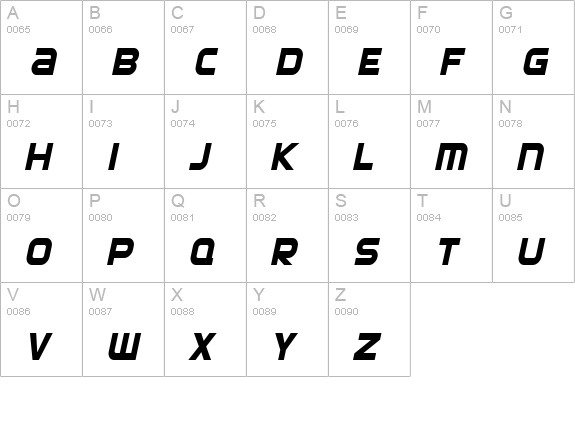
SF Automaton Condensed Oblique Font Details
SF Automaton Condensed Oblique is a distinctive, condensed-width, italic variant in the SF typeface family \xE2\x80\x94 well suited to design and typography projects.
SF Automaton Condensed Oblique is a modern and sleek font that is perfect for adding a touch of sophistication to your designs. Its condensed and oblique style gives it a unique and eye-catching appearance that is sure to make a statement. This font is ideal for various design projects such as logos, headers, posters, and more. What makes SF Automaton Condensed Oblique even better is that it is available for free! You can easily download this font at FontsMarket.com, where you'll find a wide variety of high-quality fonts to choose from. Whether you're a seasoned designer or just starting out, this font is a great addition to your collection. With SF Automaton Condensed Oblique, you can create professional-looking designs without breaking the bank. Its clean lines and modern aesthetic make it versatile and suitable for a wide range of applications. Whether you're designing for print or digital media, this font is sure to elevate your projects to new heights. The condensed nature of SF Automaton Condensed Oblique allows you to fit more text into a limited space without sacrificing legibility. This makes it a great choice for projects where space is at a premium, such as small advertisements or social media graphics. The oblique style adds a touch of flair and elegance, making your designs stand out from the crowd. In conclusion, SF Automaton Condensed Oblique is a stylish and versatile font that is freely available to download at FontsMarket.com. Its modern and sleek design, combined with its condensed and oblique style, make it a great choice for a wide range of design projects. Whether you're a professional designer or a hobbyist, this font is sure to impress. Download SF Automaton Condensed Oblique today and take your designs to the next level.